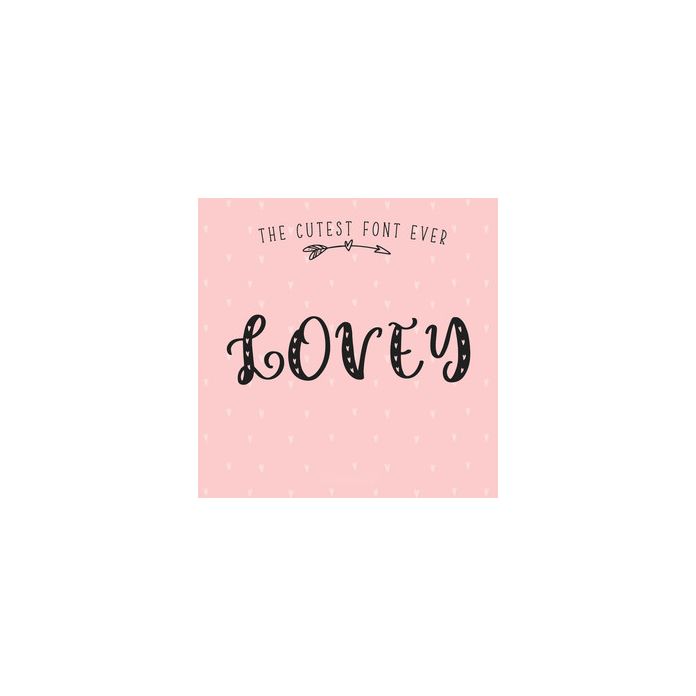
Lovey is the cutest font ever! You can use it for Valentine's day cards, cupcake toppers, nursery designs & newborn & kids clothing & wedding invites.
Lovey hearts is a lovely all-caps font family that comes with the cutest heart details